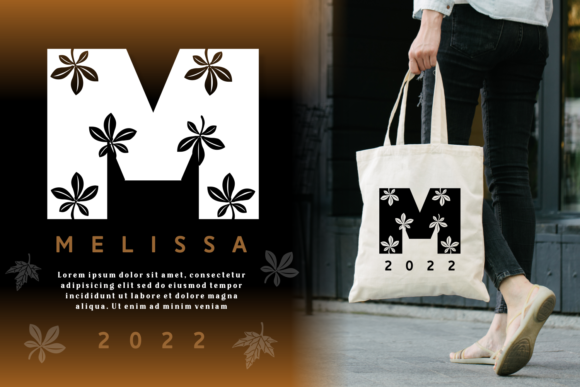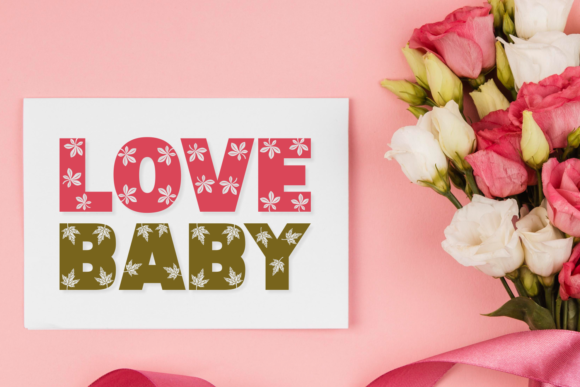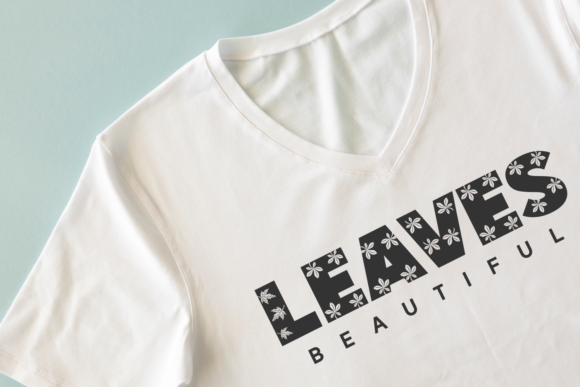
Introduction to Small Leaves Font
Small Leaves is a beautiful decorative font inspired by nature and leaves.
You can use it for tote bags, t-shirts, posters, quotes, logos, covers, fashion, and more .